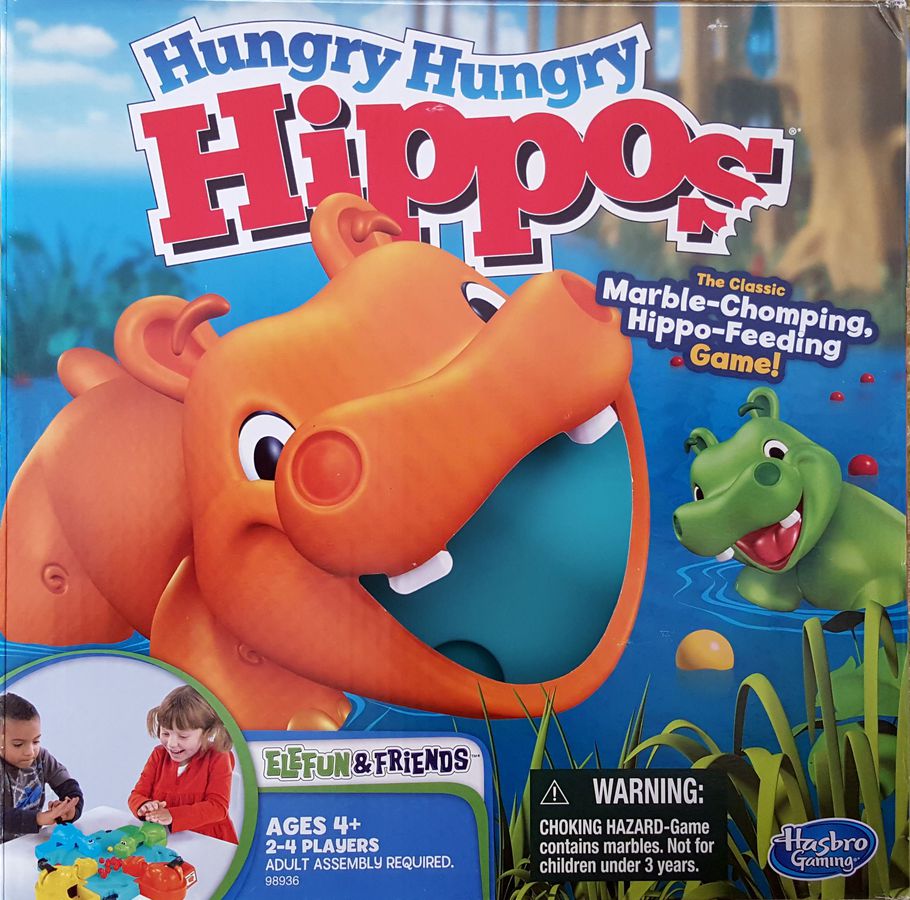
Hungry Hungry Hippos Font
Fonts in UseHungry Hungry Hippos was developed by Hasbro in 1967, and it is a tabletop game that involves players frantically pressing a lever to make their plastic hippo gobble up as many marbles as possible.
This is the front cover of the 2014 Edition of the game featuring a logo designed with Chunk Five, an ultra-bold slab serif typeface by The League of Moveable Type in 2009. A textured variant of the font called Chunk Five Print was introduced in 2014 and can be downloaded for free from the Fonts Used Section.